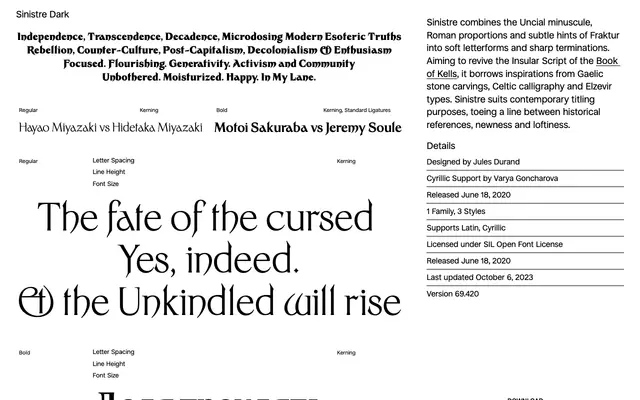
Sinistre
Collletttivo · Jules Durand · 2020
A free uncial display typeface drawing on the Book of Kells, Gaelic stone carving and Celtic calligraphy, available in three weights with Cyrillic support.
Designed by Jules Durand and released in 2020 under the SIL Open Font License, Sinistre blends Uncial minuscule with Roman proportions and faint Fraktur references. Soft letterforms are offset by sharp terminations, pulling the design away from straight revival and towards something usable for contemporary titling. Cyrillic support was added by Varya Goncharova, extending the family's reach beyond Latin.
Sinistre combines Uncial minuscule letterforms with Roman proportions and Fraktur inflections, drawing on Insular script, Celtic calligraphy and Gaelic stone carving traditions. Its historical references and sharp terminations place it firmly in the display category under the uncial subcategory.